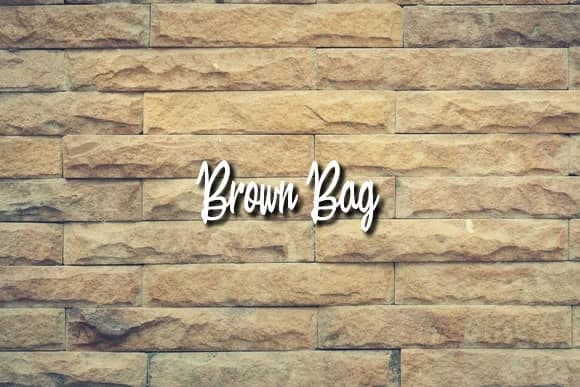
About Middle Management Font
Middle Management Font by jeffbensch is a fluid handwritten script that brings organic warmth to contemporary design work. The typeface captures genuine handwriting's natural rhythm and expressive character, translating that authenticity into a versatile tool across multiple creative applications and mediums.
This casual script works beautifully across both digital and physical projects. Create memorable wedding invitation suites with genuine personality, design handmade greeting card collections that feel personally crafted rather than templated, develop custom coffee shop menus with an inviting and approachable aesthetic, or assemble personalized stationery collections that stand distinctly apart from mass-produced alternatives. The letterforms maintain consistent readability while delivering the informal charm that resonates with audiences seeking something beyond typical corporate typefaces.
Beyond traditional print applications, the font's compatibility with cutting machine software opens possibilities for vinyl decal projects, custom apparel designs, personalized home dΓ©cor items, and other crafting pursuits that benefit from handwritten character. Whether you're building a distinctive brand identity for a small business, creating one-off pieces for a boutique clientele, or managing personal creative projects, Middle Management Font delivers character and visual polish without sacrificing the handmade quality that contemporary consumers increasingly value and seek out. Get Middle Management Font on Creative Fabrica to add this expressive script to your design toolkit.
Middle Management Font is a script font that shines as a display or heading face. Pair it with a clean sans-serif or serif font for body text β the contrast creates a clear hierarchy while the two styles stay balanced and easy to read.
Middle Management Font
by jeffbensch